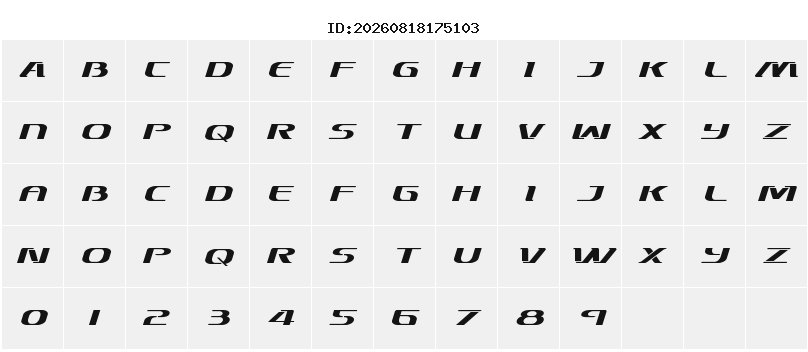
Sky Marshal Expanded Italic Preview
• Font Name: Sky Marshal Expanded Italic
• Font Style: Expanded Italic
• Full Font Name: Sky Marshal Expanded Italic
• Designer: Daniel Zadorzny
About Sky Marshal Expanded Italic.ttf
Sky Marshal Expanded Italic.ttf is a modern, elegant sans-serif font designed for ultimate readability and visual harmony. Perfect for branding, headlines, web design, and print materials.